44 Geometric Sans Serif Fonts for Clean and Modern Design in 2026
Finding the right typeface often feels like the hardest part of a project, but nothing beats the clean lines and mathematical precision of geometric sans serif fonts. In 2026, these versatile styles continue to dominate everything from high-end branding to mobile app interfaces. Whether you are looking for something inspired by the Bauhaus movement or a futuristic take on classic shapes, this collection of 44 geometric sans serif fonts provides the perfect foundation for any professional layout.
1. Tower Font
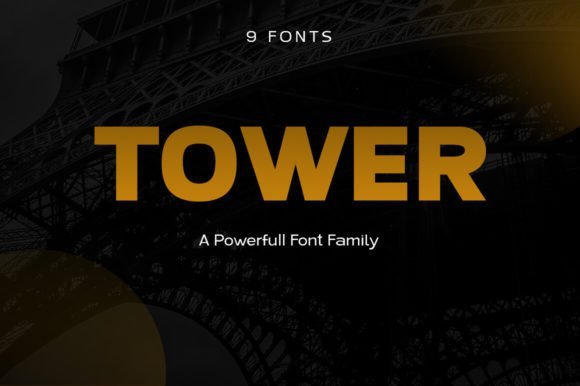
Tower stands out as a robust architectural typeface that expertly balances mathematical precision with approachable aesthetics. As a premier example of geometric sans serif fonts, it features a remarkably large x-height and minimal contrast, ensuring that every character remains legible even at small sizes in dense body text. The expansive weight range, spanning from delicate light to commanding black, allows designers to establish a clear typographic hierarchy within complex branding systems and high-end editorial layouts.
This typeface is particularly effective for large-scale advertising and digital UI projects where clarity is paramount. Its sophisticated, low-contrast design creates a clean, modern look that thrives in contemporary web environments and professional packaging. Whether you are crafting a minimalist logo or an information-heavy magazine spread, Tower provides the versatility of a true workhorse font with a distinctive, refined edge.
2. Pogonia Font
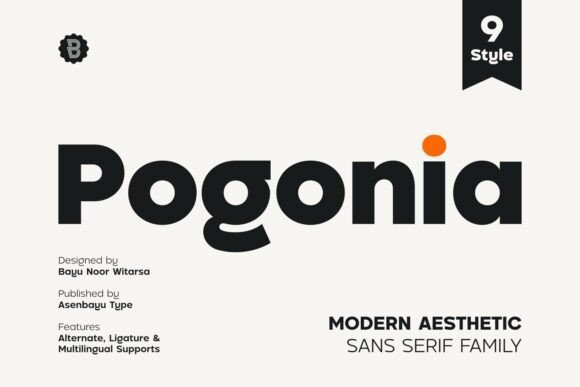
Pogonia offers a refreshing take on the geometric sans serif fonts category by blending rigid structural integrity with humanist warmth. This hybrid approach softens the coldness often associated with purely mathematical shapes, resulting in a typeface that feels both professional and inviting. Its timeless appeal is rooted in its simplicity, making it a versatile tool for creators who need a font that can transition seamlessly between digital social media assets and high-fashion print materials.
Ideal for lifestyle brands and boutique identity projects, Pogonia excels when used in lifestyle-oriented logo designs and aesthetic posters. The balanced proportions and open counters give the text a breathable quality, which is essential for maintaining a premium feel in minimalist web design. If you are looking to convey a sense of modern elegance without sacrificing readability, this typeface provides the perfect typographic voice for a variety of creative ventures.
3. Montreal Font
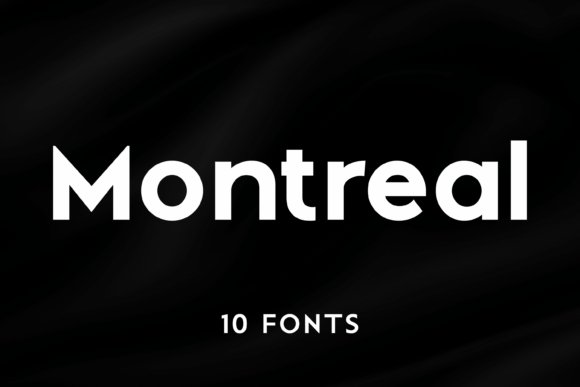
Montreal is a comprehensive typeface system designed for those who demand ultimate flexibility and a modernist aesthetic. With 10 distinct styles ranging from thin to heavy, this family exemplifies the core principles of geometric sans serif fonts: even proportions, sharp angles, and clean, unadorned lines. Each weight has been meticulously crafted to ensure harmony across the entire family, allowing for sophisticated pairings that look intentional and professionally polished.
The heavier weights, such as Montreal Black, are perfect for high-impact headlines and futuristic tech branding, while the lighter weights offer an understated elegance suitable for corporate stationary and editorial copy. This typeface is a valuable asset for any designer working on complex corporate identities or sleek app interfaces, as it provides the consistency needed for large-scale visual systems while maintaining a contemporary, high-contrast impact in display settings.
4. Mansfield Font
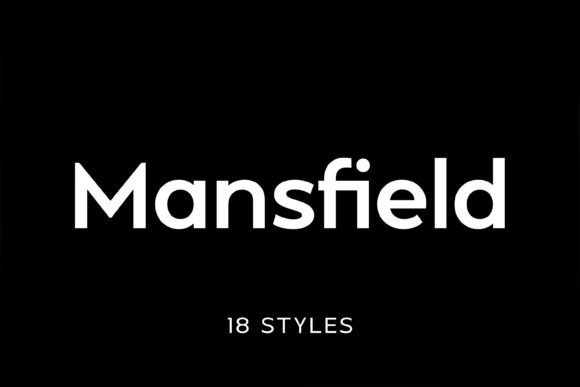
Mansfield is a masterclass in modern typography, drawing deep inspiration from the 20th-century giants like Futura and Avant-Garde to create a contemporary powerhouse. As one of the most versatile geometric sans serif fonts available, it balances the rigid mathematical precision of the Bauhaus movement with the softer, more readable nuances of neo-grotesque design. The result is a typeface characterized by a tall x-height and minimal stroke contrast, ensuring that every character remains legible whether it is rendered in a tiny mobile UI or a sprawling billboard.
With a comprehensive family of 18 styles across 9 distinct weights, Mansfield offers designers an incredible level of typographic control. This flexibility makes it an essential tool for complex editorial layouts where establishing a clear visual hierarchy is paramount. Beyond print, its clean silhouettes and sharp edges make it an ideal choice for high-end SaaS branding, professional web interfaces, and corporate identities that require a sense of permanence and modern sophistication.
5. Gragien Font
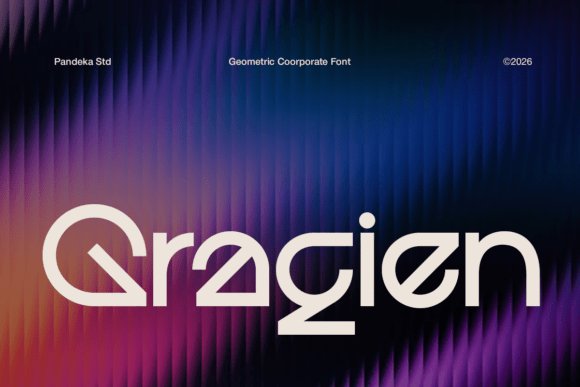
Gragien is a refined entry into the world of geometric sans serif fonts, specifically engineered for brands that demand a sense of structured innovation and corporate clarity. Its design is built upon a foundation of perfectly balanced proportions and smooth, circular curves that reflect a forward-thinking, technological aesthetic. Unlike more decorative typefaces, Gragien prioritizes efficiency and readability, making it a reliable workhorse for architectural firms, engineering consultancies, and modern financial institutions.
While many font families rely on sheer volume of weights, Gragien focuses on a single, impeccably crafted Regular style that excels in digital environments. Its clarity makes it particularly effective for data-heavy dashboards, tech presentations, and intricate user interfaces where every pixel counts. The inclusion of comprehensive multilingual support and precise punctuation ensures that it can carry a professional brand identity across global markets without losing its sleek, minimalist charm.
6. Savior Sense Font
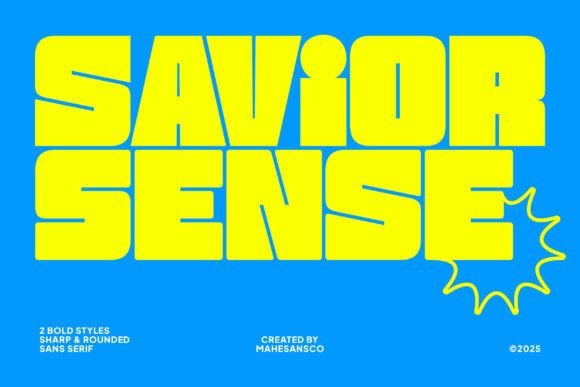
For projects that require a high-decibel visual impact, Savior Sense Font stands out among geometric sans serif fonts as a radically bold and heavy display face. It features aggressive, blocky letterforms with extremely tight internal counter spaces, creating a dense typographic texture that commands immediate attention. This font is designed to dominate the visual field, making it the perfect choice for title sequences, hero banners, and any advertising campaign that needs to project a sense of raw power and urban energy.
The family is split into two distinct personality types: Sharp and Rounded. The Sharp style offers a hard-edged, crystalline intensity suitable for competitive e-sports branding and edgy tech startups, while the Rounded version provides a slightly softer, more approachable take on the massive weight, ideal for streetwear labels and modern lifestyle magazines. Whether used in hip-hop album art or oversized exhibition posters, Savior Sense provides a youthful, confident aesthetic that is impossible to ignore.
7. Boho Wedding Duo Font
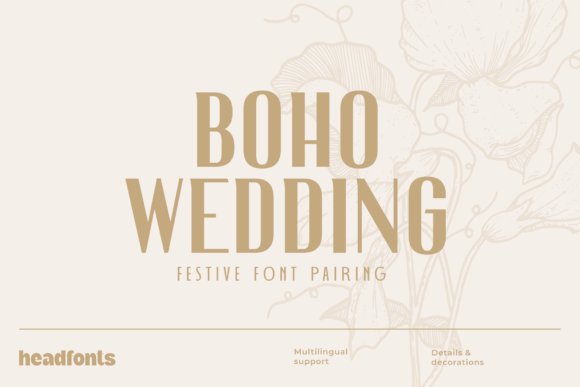
The Boho Wedding Duo offers a sophisticated masterclass in typographic contrast, pairing the intricate Nailhead Nova with the structured, art-deco-inspired Decohead. This combination thrives on the tension between ornate decorative elements and the clean, rhythmic lines of geometric sans serif fonts. By balancing a high-fashion display style with a functional sans-serif companion, designers can create a visual narrative that feels both organic and meticulously organized, perfect for high-end boutique branding or lifestyle editorial layouts.
Beyond the typical wedding suite, this duo excels in experiential design and luxury event planning. The geometric foundation of the secondary typeface ensures that fine print on menus, place cards, and seating charts remains legible even in dim lighting, while the more expressive partner handles the heavy lifting of headlines and logotypes. It is a versatile toolkit for any project that requires a fusion of bohemian whimsy and modern architectural precision.
8. Hugos Font
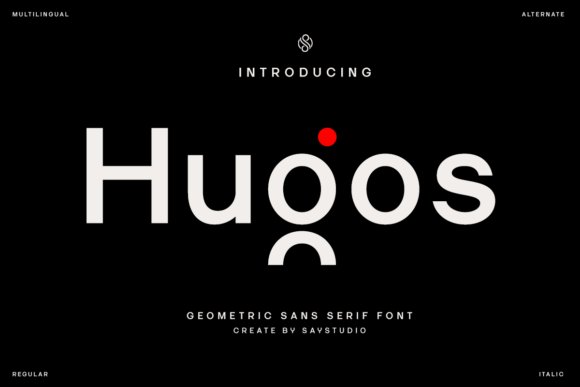
Hugos stands as a testament to the enduring appeal of mathematical harmony in typography, serving as a quintessential example of how geometric sans serif fonts can define a modern digital identity. Its letterforms are built on a framework of circular and linear shapes, resulting in a typeface that feels inherently professional yet approachable. This structural integrity makes it an ideal candidate for corporate rebranding projects where the goal is to project stability, innovation, and a forward-thinking ethos.
In the realm of UI/UX design, Hugos shines by offering exceptional clarity at various scales, from micro-copy in mobile applications to bold, impactful hero banners on desktop sites. The inclusion of a slanted italic style provides a necessary tool for creating emphasis and visual hierarchy without breaking the consistency of the grid-based design. Whether you are crafting a sleek tech interface or a minimal portfolio, this font provides the neutral yet distinct canvas needed to let content lead.
9. Drixon Font
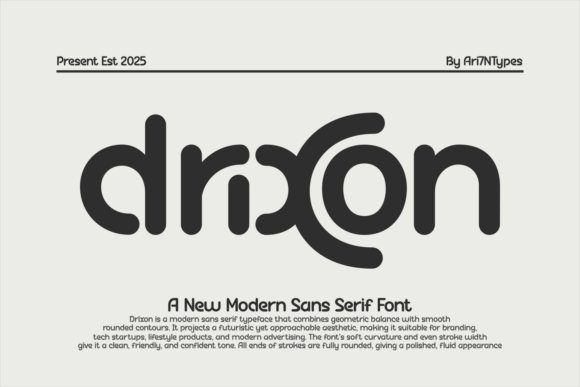
Drixon redefines the futuristic aesthetic by softening the edges of traditional geometric sans serif fonts to create a “human-friendly tech” vibe. While many sci-fi typefaces lean into aggressive angles, Drixon utilizes a smooth, rounded geometry that suggests innovation and fluid movement. This makes it particularly effective for hardware branding, app development, and any industry where the intersection of advanced technology and user accessibility is paramount.
The typeface’s polished and symmetrical construction offers a sense of calm confidence, making it a powerful choice for large-scale environmental graphics or automotive dashboard interfaces. Because the strokes maintain a consistent visual weight, Drixon remains highly readable even when applied to translucent textures or glowing digital displays. It is a distinctive choice for creators looking to move away from rigid, boxy shapes toward a more organic, futuristic visual language.
10. Spatha Fold Font
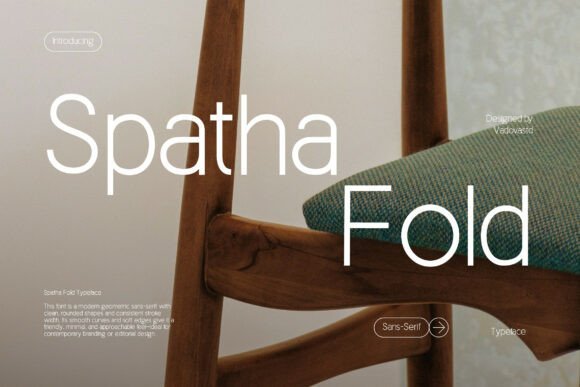
Spatha Fold Font stands as a masterclass in the intersection of organic softness and structural rigor. As a premier choice among geometric sans serif fonts, it trades the often harsh, clinical edges of the genre for fluid, inviting curves that suggest a refined touch. This typeface is particularly effective in editorial environments where the text must breathe, offering a sense of airy sophistication that works perfectly for high-end interior design portfolios or lifestyle magazines. The generous letter spacing and deliberate stroke weight ensure that every word maintains its legibility while exuding an aura of contemporary calm.
For designers tasked with building a cohesive visual identity, this font provides a versatile foundation for branding concepts that require a professional yet approachable demeanor. Its unique geometric construction makes it a standout option for minimalist posters and architectural signage, where the purity of form is paramount. By choosing this typeface, you are not just selecting a set of characters, but adopting a design philosophy that prioritizes clarity, elegance, and the soft-modern aesthetic essential for today’s luxury markets.
11. Inertia Matte Edition Font
The Inertia Matte Edition Font is a high-performance display family that draws heavy inspiration from the world of industrial design and modern aerospace engineering. Unlike more traditional geometric sans serif fonts, this edition introduces a compelling structural rhythm through the use of subtle stencil-like gaps and interlocking strokes. These technical nuances create a sense of forward motion and mechanical precision, making it an ideal candidate for tech startups, luxury automotive brands, and high-end manufacturing firms looking to project an image of innovation and durability.
Beyond its striking visual weight, Inertia Matte Edition offers a distinctive set of character shapes, such as the elegantly arched ‘A’ and the dual-line ‘N’, which transform standard headlines into works of typographic art. This typeface is engineered for impact, thriving in large-scale formats like exhibition graphics, packaging, and digital interfaces. With its support for extended Latin characters and a robust set of symbols, it provides global brands with the tools necessary to maintain a consistent, sophisticated presence across diverse international markets.
12. Moonhost Font
Moonhost Font serves as a bridge between the opulence of the Roaring Twenties and the sterile precision of the space age. This stencil-based display typeface reinterprets the classic Art Deco aesthetic through the lens of modern geometric sans serif fonts, resulting in a look that is both regal and technologically advanced. The strategic use of negative space within each letterform creates a rhythmic pulse that is perfect for luxury branding, boutique hospitality identities, and premium spirits packaging where a sense of exclusivity is required.
The typeface is particularly adept at handling creative projects that demand a strong, authoritative voice without sacrificing stylistic flair. Whether applied to a minimalist movie poster or a high-concept fashion campaign, Moonhost commands attention through its unique geometry and historical weight. By blending traditional design philosophies with contemporary stencil mechanics, this font offers a fresh perspective for designers seeking to create a visual narrative that feels timeless yet undeniably rooted in the future.
13. Ropan Font
Ropan distinguishes itself through a comprehensive weight system, spanning nine distinct levels from an ethereal thin to a commanding black. This architectural approach to type design ensures that the typeface maintains its structural integrity whether it is being used for intricate fine print or bold, high-contrast display headlines. Its clean lines and balanced proportions make it a quintessential example of how geometric sans serif fonts can adapt to the rigorous demands of modern digital interfaces and physical branding materials alike.
The font is particularly effective for designers who need a workhorse family for multi-layered projects such as magazine layouts or complex corporate identities. By leveraging its OpenType features, users can unlock a level of typographic nuance that elevates simple labels and packaging into sophisticated pieces of visual communication. Whether you are crafting a minimalist logo or a data-heavy annual report, the neutral yet contemporary aesthetic of this typeface provides a stable foundation for any creative direction.
14. Rainis Font
Rainis serves as a bridge between the historical elegance of the Art Deco period and the crisp efficiency of contemporary display design. While many geometric sans serif fonts prioritize utility above all else, Rainis embraces its decorative roots to act as a bold visual anchor in posters and web hero sections. The sharp, calculated geometry of its letterforms reflects a sense of luxury and architectural precision, making it an ideal candidate for high-end fashion branding or editorial illustrations that require a touch of mid-century flair.
Because it functions primarily as a display typeface, it pairs exceptionally well with more restrained, utilitarian fonts. Using it as a headline face allows for a sophisticated interplay of shapes, where the exaggerated curves and straight-edge terminals create a rhythmic flow across the page. It is a specialized tool for designers who want to break away from the monotony of standard neo-grotesques while still maintaining the clean, logical structure inherent in geometric typography.
15. Magnify Font
Drawing deep inspiration from the 1927 classic Futura, Magnify Font introduces a subtle but significant evolution to the rigid circularity often found in the genre. By utilizing slightly oval-shaped structures for key characters like the ‘O’, ‘G’, and ‘C’, it achieves a more natural optical balance that reduces the harshness typically associated with purely mathematical designs. This intentional deviation results in a typeface that feels more breathable and legible in long-form paragraphs without sacrificing the clean and modern ethos of the geometric sans serif category.
The family consists of eight weights, complemented by matching obliques, providing a granular level of control over typographic hierarchy. The inclusion of unique alternate characters for lowercase letters such as ‘a’, ‘g’, and ‘y’ offers a bespoke feel, allowing designers to customize the personality of a headline or a logo on the fly. From the delicate precision of the Hairline weight to the authoritative presence of the Bold, this font family is a sophisticated tribute to the Bauhaus movement, refined for the high-resolution requirements of today’s design landscape.
16. Perfect Corporate Font
Perfect Corporate Font serves as a cornerstone for designers seeking a balance between clinical precision and approachable warmth. By utilizing a diverse range of nine specific weights, from the ethereal Thin to the commanding Black, this typeface enables a sophisticated typographic hierarchy that is essential for complex information design. Its geometric sans serif fonts foundations are evident in the mathematically balanced circles and clean intersections, ensuring that even in dense corporate annual reports or multi-layered web interfaces, the text remains exceptionally readable and visually cohesive.
Beyond its aesthetic versatility, the typeface is engineered for high-stakes business environments where consistency across platforms is non-negotiable. Whether it is applied to a minimalist tech startup’s landing page or a legacy firm’s internal documentation, the font provides a sense of established authority. The inclusion of PUA encoding simplifies the workflow for creative professionals, allowing easy access to a rich set of glyphs and special characters without requiring specialized layout software, making it a highly efficient tool for both print and digital production cycles.
17. Noemia Dreams Font
Noemia Dreams Font offers a masterclass in the ‘retro-revival’ aesthetic, pairing a structured sans with a rhythmic, expressive script to evoke the soul of the 1970s. This duo leverages the inherent stability of geometric sans serif fonts to provide a solid visual anchor, while the accompanying script adds a layer of organic human touch. This juxtaposition is particularly effective for boutique branding projects, such as luxury candle packaging or high-end apparel labels, where the goal is to feel both nostalgically familiar and modernly curated.
The typeface excels in editorial environments, where its dual nature can be used to create dynamic title treatments and pull-quotes that jump off the page. The sans component is crafted with a spacious x-height and circular proportions that maintain clarity even in smaller captions, while the script flourishes provide a decorative contrast that mimics hand-painted signage. By integrating these two distinct styles, designers can achieve a complex, multi-dimensional brand identity that captures the ‘analog’ warmth of vintage vinyl records without sacrificing the technical requirements of high-resolution digital displays.
18. Bager Font
Bager Font is a high-octane interpretation of modern typography, specifically engineered for industries where speed and technological prowess are key. Its wide-proportioned characters and architectural stability differentiate it from more traditional geometric sans serif fonts, creating a sense of forward momentum and horizontal expansion. This makes it an ideal candidate for automotive branding, sports apparel, and cinematic title sequences that require a font with a ‘heavy’ visual footprint and an aerodynamic aesthetic.
The typeface’s versatility is anchored by its eight variable weights, allowing designers to transition smoothly from the sleek elegance of the lighter styles to the industrial strength of the Extra Bold. In digital environments, Bager’s sharp terminals and open counters ensure crisp rendering on high-density screens, making it a reliable choice for futuristic UI/UX designs and gaming interfaces. By prioritizing a sense of physical presence and precision, this font empowers creators to build visual identities that feel both permanent and pulse-pounding, perfectly suited for the fast-paced world of tech innovation.
19. Geometos Neue Font
Geometos Neue Font stands out as a masterclass in architectural precision, offering an all-caps display family that commands attention through its seven diverse weights. This typeface strips away unnecessary ornamentation to focus on the raw power of the circle and line, making it a quintessential example of how geometric sans serif fonts can define a visual space. From the light, airy presence of its thinner weights to the thunderous impact of the extra-bold versions, this family provides designers with a consistent, sharp-edged toolkit for high-stakes branding and editorial hierarchies.
Ideally suited for environments where clarity and authority are non-negotiable, Geometos Neue excels in large-scale applications such as environmental signage, movie titles, and digital headers. The emphatic form of each glyph ensures legibility across various distances, while the uniform stroke widths maintain a cohesive aesthetic throughout complex layouts. Whether you are developing a modern corporate identity or a minimalist poster series, this font delivers a polished, professional finish that feels both timeless and aggressively contemporary.
20. Gorva Font
Gorva Font reimagines the standard construction of geometric sans serif fonts by infusing a sense of high-fashion elegance and rhythmic flow. While many geometric typefaces can feel rigid, Gorva introduces modern, unique stylistic flourishes that elevate it beyond mere utility. It is fully PUA encoded, granting designers seamless access to a rich library of special glyphs and decorative swashes without the need for complex software workarounds. This makes it an exceptionally user-friendly choice for creators looking to add a custom, hand-crafted feel to their digital typesetting.
The inclusion of sophisticated ligatures and alternate characters allows for a high degree of customization in logo design and boutique packaging. Its balanced proportions and wide apertures ensure that it remains readable while still making a bold stylistic statement. If you are working on a luxury brand project or a lifestyle magazine where the typography needs to bridge the gap between structural geometry and artistic flair, Gorva provides the necessary versatility to take your creative vision to the next level.
21. Novaris Font
Novaris Font is a premium typographic solution that brilliantly navigates the intersection of futuristic aesthetics and organic minimalism. Characterized by a harmonious blend of sharp, clean cuts and smooth, futuristic curves, this typeface represents a sophisticated evolution within the realm of geometric sans serif fonts. Its versatility is its greatest strength, offering a visual language that feels just as at home in a high-tech gaming interface as it does in a luxury skincare campaign. The typeface communicates a sense of progress and innovation, making it the perfect vehicle for brands that want to position themselves at the forefront of their industry.
Beyond its obvious applications in sci-fi and tech sectors, Novaris offers a surprising level of warmth that makes it ideal for sustainable branding and eco-conscious initiatives. The minimalist lines evoke a sense of purity and clarity, which is essential for projects related to conservation or high-end architectural design. By prioritizing balanced geometry and visual impact, Novaris ensures that every word carries weight, providing a striking presence in both digital UI environments and high-resolution print materials.
22. Noar Font
Noar is a masterclass in architectural clarity, offering a refined interpretation of modern typography. This typeface family distinguishes itself through a five-weight system ranging from a delicate Extra Light to a commanding Bold, all accompanied by perfectly matched italics. By adhering to the core principles of geometric sans serif fonts, Noar utilizes low visual contrast and open apertures to ensure that every glyph remains distinct, whether rendered on a high-resolution display or a printed editorial spread.
While many display fonts sacrifice utility for style, Noar bridges the gap by functioning as both a loud headline tool and a subtle informative face. Its all-caps character set is particularly effective for branding projects that require a sense of authority and permanence. Designers can leverage the stylistic alternates and PUA-encoded features to create bespoke logos or unique book covers that feel custom-tailored rather than template-driven, making it a cornerstone asset for any professional design toolkit.
23. Luminova Font
Luminova introduces a humanistic warmth to the often rigid world of geometric sans serif fonts. By softening the standard mathematical precision of modern letterforms with gentle curves and airy spacing, this typeface achieves a sense of approachability without losing its professional edge. Its minimalist construction is built on a soft geometric rhythm that prioritizes eye comfort, making it an exceptional choice for long-form reading on digital interfaces and lifestyle-oriented mobile applications.
Beyond its technical merits, Luminova serves as a versatile visual voice for brands that value transparency and modernism. The open shapes and generous tracking allow the font to breathe, ensuring that messaging remains legible even in cramped UI environments or small-scale packaging. Whether you are developing a new corporate identity or crafting a clean editorial layout, this font provides the perfect balance of personality and functional simplicity, proving that geometric structures can feel remarkably organic.
24. Cadera Font
Cadera Font represents a sophisticated intersection between classical Roman proportions and contemporary minimalism. As a high-contrast serif, it provides a sharp, artistic counterpoint to the uniform stroke weights typically found in geometric sans serif fonts. The typeface is defined by its dramatic hairlines and bold stems, creating a rhythmic visual tension that is ideally suited for luxury fashion editorials, artisanal packaging, and high-end architectural branding where every character must exude elegance.
What truly elevates Cadera is its collection of sweeping curves and fluid ligatures that transform standard text into a piece of static art. While its primary role is that of a hero display font, it functions exceptionally well when paired with a clean, low-contrast sans-serif to handle body copy. This contrast allows Cadera’s decorative elements and sharp serifs to command the viewer’s attention, making it a go-to selection for designers looking to inject a sense of quiet confidence and timeless sophistication into their creative projects.
25. Loqura Font
Loqura introduces a sharp, techno-modern aesthetic to the realm of geometric sans serif fonts, channeling a distinct Y2K futurism that is both nostalgic and forward-looking. Its architecture is defined by condensed shapes and high-contrast geometric precision, making it an ideal choice for creators looking to establish a dominant visual identity. The typeface excels in digital-first environments where bold headlines and sleek logos need to command attention without sacrificing minimalist elegance.
Beyond its striking visual weight, this font is meticulously crafted for versatility across modern design suites like Adobe Illustrator and Canva. It is particularly effective for high-impact branding projects, stationery mockups, and experimental editorial layouts. Whether you are building a tech startup’s landing page or designing a streetwear lookbook, the sleek lines and sharp curves of Loqura provide a sophisticated edge that ensures your typography stands out in a crowded digital landscape.
26. Holgada Family Font
Designed by Pablo Balcells for Graviton Font Foundry, the Holgada Family is a masterclass in balancing structural rigidity with an approachable, friendly personality. While many geometric sans serif fonts can feel cold or overly mechanical, Holgada utilizes refined rounded endings to soften its appearance, creating a welcoming feel for the viewer. This 12-style family is engineered for extreme legibility, making it a reliable workhorse for everything from dense technical documentation to sprawling corporate identities.
The typeface’s versatility is its greatest strength, offering a full range of weights and small caps that adapt seamlessly to different scales. In small sizes, its clear apertures and balanced proportions ensure readability in long-form body text, while in large display formats, the rounded terminals provide a distinctive, contemporary character for logos and headers. Supporting multiple languages and diverse typographic needs, Holgada is an essential tool for designers who require a neutral yet warm geometric foundation for multi-platform projects.
27. Caplove Font
Caplove breaks the traditional mold of geometric sans serif fonts by infusing a playful, sophisticated flair into a clean typographic structure. It is characterized by its unique character alternates—most notably the expressive ‘C’ and ‘E’—which allow designers to create a custom, hand-lettered look with the efficiency of a digital typeface. This balance of thick, bold strokes and unexpected curvy flourishes makes it a powerhouse for the fashion and beauty industries, where personality and luxury must coexist.
Functionally, Caplove serves as a high-impact display face that turns standard messaging into a piece of digital art. It pairs beautifully with light-weight serifs for a high-fashion editorial vibe or with more rigid geometric faces for a modern, tech-forward aesthetic. It is exceptionally well-suited for luxury packaging, book cover designs, and social media tiles that require a bold, recognizable mark. By integrating designer-level character variations directly into the font, Caplove empowers creators to build distinct, memorable brand narratives without needing complex manual adjustments.
28. Fringk Font
Fringk Font represents a masterclass in high-contrast elegance, offering a sharp, sophisticated aesthetic that bridges the gap between classic editorial style and modern display requirements. While it features refined serifs and polished letterforms, its structured proportions allow it to harmonize beautifully alongside modern geometric sans serif fonts in complex typographic hierarchies. This typeface is particularly effective for luxury branding where a sense of prestige and timelessness is paramount, providing a crisp visual texture that commands attention in high-end fashion magazines or bespoke wedding invitations.
Beyond its sharp terminals, Fringk offers a level of versatility that designers often seek when building a multi-layered brand identity. It excels in large-scale applications such as boutique storefronts and premium product packaging, where its delicate yet confident strokes can truly shine. To achieve a perfectly balanced contemporary look, consider pairing this font with minimalist sans serif families; the interplay between Fringk’s organic warmth and the rigid precision of geometric sans serif fonts creates a dynamic visual tension that feels both current and authoritative.
29. Cult Font
Cult Font stands out as a premier example of contemporary typography, meticulously engineered for brand identities that value clarity and structural integrity. As one of the most versatile geometric sans serif fonts in a designer’s toolkit, it utilizes precise circular curves and consistent stroke widths to deliver a sense of modern objectivity. This makes it an exceptional choice for architectural firms or creative agencies looking to project a forward-thinking and highly organized image across both digital interfaces and physical environmental signage.
What distinguishes Cult from other minimalist options is its inherent confidence; the typeface possesses a vertical stability that ensures legibility at any scale, from micro-copy on mobile apps to massive outdoor billboards. Its clean proportions offer a neutral yet sophisticated canvas that doesn’t distract from the core message, allowing the geometry of the letterforms to speak for themselves. When integrated into a luxury brand system, this font reinforces a sense of premium quality, proving that geometric sans serif fonts can be both functional and deeply evocative of modern high-fashion aesthetics.
30. Massive Geometric Font Bundle
The Massive Geometric Font Bundle is an expansive library designed for professionals who require a diverse range of weights and styles within the realm of modern typography. This collection features 20 distinct typefaces, each rooted in the fundamental principles of Euclidean geometry, ensuring that every character across the entire set maintains a strict adherence to balance and proportion. By offering a spectrum of geometric sans serif fonts, this bundle provides the necessary flexibility to tackle everything from tech-focused editorial layouts to minimalist corporate stationery without ever sacrificing visual cohesion.
For designers tasked with creating scalable design systems, having access to such a wide variety of geometric sans serif fonts is invaluable. The fonts in this bundle are optimized for high-performance rendering on digital screens while maintaining the crisp, tactile quality required for premium print production. Whether you are developing a user interface for a fintech startup or a comprehensive signage system for a museum, these typefaces provide the structural clarity and functional beauty needed to communicate complex information with ease and style.
31. Keager Font
Keager Font stands as a testament to the versatility of contemporary geometric sans serif fonts, blending rigid structural integrity with a distinctive, assertive personality. Its letterforms are characterized by a clean, rationalized skeleton that prioritizes readability while maintaining a bold, heavy-weight presence. Unlike more sterile typefaces, Keager introduces subtle, unique nuances in its joints and terminals, making it a premier selection for designers looking to inject a sense of premium power into high-impact branding projects and modern logotypes.
When implemented in display contexts, this typeface thrives across digital and physical mediums alike. Its robust construction ensures clarity in social media storytelling and high-resolution packaging, where visual weight is paramount. For art directors seeking a typeface that balances the mathematical perfection of geometric shapes with a raw, energetic flair, Keager provides a sophisticated solution that bridges the gap between editorial elegance and street-ready graphic design.
32. Duoline Modern Font
Duoline Modern Font offers a high-tech reimagining of traditional geometric sans serif fonts by introducing a sophisticated inline, double-stroke architecture. This stylistic choice creates a sense of depth and motion, making it particularly effective for industries centered around innovation, such as aerospace, software development, and automotive design. The parallel lines are meticulously spaced to maintain optical balance, ensuring that the typeface remains legible even when the aesthetic leans heavily into a futuristic or industrial vibe.
Beyond its technical appeal, Duoline Modern excels in minimalist poster design and architectural branding where negative space plays a critical role. The font’s sporty and rhythmic cadence makes it an ideal candidate for luxury athletic apparel labels or trend-forward monograms. By departing from solid-fill characters, it allows designers to play with transparency and layering, providing a toolset that feels both structurally sound and visually light.
33. Benzin Font
Benzin Font is a masterclass in functional utility, offering a comprehensive family of five weights that cater to a full spectrum of typographic needs. As one of the more versatile geometric sans serif fonts on the market, it addresses the common struggle of kerning adjustments through built-in optical optimization. The family is engineered so that the Thin weights feature naturally wider letter-spacing for breathability in long-form body copy, while the Bold and Black weights are tightened for maximum impact in massive headlines and aggressive poster layouts.
This out-of-the-box readiness makes Benzin a favorite for UI/UX designers and editorial layout artists who require a cohesive visual language across various interface scales. Whether you are crafting a dense informational brochure or a minimalist web landing page, the geometric consistency of Benzin ensures a professional, harmonious look. It eliminates the guesswork of manual tracking, allowing creators to focus on the hierarchy and composition of their message rather than the minutiae of character spacing.
34. Geonowa Font
Geonowa represents a masterful execution of the contemporary geometric sans serif fonts movement, prioritizing optical balance and fluid circularity. Its design philosophy centers on a harmonious blend of mechanical precision and soft, approachable terminals, which effectively removes the coldness often associated with strictly mathematical typefaces. For creative directors building comprehensive digital design systems, this font offers a versatile foundation that remains legible across diverse screen densities, ensuring that brand personality is never sacrificed for functionality.
The typeface shines particularly bright in corporate identity projects and tech-focused branding where a sense of reliability and modern innovation is required. Because of its wide weight range and meticulously spaced characters, Geonowa excels in both high-contrast website headers and intricate mobile app interfaces. It is an essential tool for designers seeking a clean, professional aesthetic that feels both futuristic and grounded, making it a top-tier choice for everything from startup pitch decks to global editorial layouts.
35. Morlen Regular Font
Morlen Regular is a powerhouse in the world of bold geometric sans serif fonts, specifically engineered for high-impact visual communication that demands immediate attention. Unlike its more delicate counterparts, this typeface utilizes heavy, chunky letterforms that dominate the layout, making it an ideal candidate for aggressive headline treatments and outdoor advertising. The sheer mass of the characters provides a solid, immovable presence on the page, perfect for designers who want to create a sense of authority and uncompromising modernism in their work.
This font is especially effective when utilized in contemporary packaging design or bold streetwear branding where the typography itself serves as the primary graphic element. Its geometric construction ensures that even at extreme weights, the negative space remains balanced, preventing the “clogging” often seen in lesser heavy fonts. Whether you are crafting a social media campaign that needs to stop the scroll or a large-scale poster for a music festival, Morlen Regular delivers a punchy, memorable aesthetic that translates perfectly from ink on paper to pixels on a screen.
36. Groptika Font
Groptika is a high-concept display typeface that pushes the boundaries of futuristic geometric sans serif fonts by incorporating sharp, stencil-like breaks and aggressive angularity. Its architectural design is heavily influenced by aerospace aesthetics and cyberpunk visuals, making it a standout selection for projects rooted in technology, gaming, and speculative fiction. The intentional gaps in the letterforms create a rhythmic visual texture that suggests data streams, mechanical assembly, and the high-speed motion of the digital age.
Because of its highly stylized and distinctive character, Groptika is best utilized as a hero font for logos, e-sports branding, and cinematic title sequences where the goal is to establish a unique, tech-forward identity. When paired with a more neutral, minimalist secondary typeface, Groptika acts as a focal point that communicates innovation and forward-thinking design. It is the perfect choice for AI startups, software developers, and luxury tech brands looking to escape traditional corporate tropes in favor of a bold, engineered look that feels decades ahead of its time.
37. Full Sans Font
Full Sans Font represents a masterful evolution of the classic geometric sans serif fonts that defined early 20th-century modernism. While it clearly draws inspiration from the legendary structures of Futura and Avant Garde, it refines those rigid forms through a meticulous harmonization of character proportions. By optimizing the relationship between x-height and width, this typeface achieves a superior level of legibility that many of its predecessors lacked, making it an exceptional choice for both high-resolution editorial work and complex digital interfaces.
This font serves as a core component of a broader typographic ecosystem, designed to work seamlessly alongside its slab and neo-grotesque siblings. With a robust library of 20 styles—including small caps and multiple weights—it offers designers a sophisticated toolkit for global branding projects. The inclusion of comprehensive OpenType features, such as case-sensitive forms and old-style figures, ensures that whether you are designing a wayfinding system or a mobile app, your typography remains polished and technically flawless.
38. Monsta Fectro Font
For designers seeking a bold departure from conventional minimalism, Monsta Fectro Font delivers a high-impact, condensed aesthetic that bridges the gap between industrial design and urban streetwear. This geometric sans serif font is characterized by its sharp, aggressive edges and a distinct Y2K techno-influence that captures the raw energy of contemporary digital culture. It is specifically engineered for display use where the objective is to command attention and project a sense of forward-thinking momentum.
Beyond its striking visual weight, this typeface excels in contexts like experimental posters, motion graphics, and futuristic visual identities. Its condensed nature allows for dense, powerful headlines that remain legible even at extreme scales. By integrating elements of grunge and techno aesthetics into a structured geometric framework, Monsta Fectro provides a unique solution for brands looking to establish a disruptive presence in the fashion, gaming, or entertainment sectors.
39. Lorin Font
Lorin Font is a sophisticated interpretation of the modern geometric sans serif fonts genre, prioritizing aesthetic balance and understated elegance. Rather than following the purely mathematical path of traditional geometry, Lorin introduces a subtle charm that gives it a more approachable, humanistic personality. This makes it an ideal candidate for luxury branding and high-end editorial layouts where a sense of quiet confidence is required rather than loud, decorative flourishes.
The true versatility of Lorin is revealed through its four distinct weights, which allow for a clear and graceful typographic hierarchy. When used with generous letter-spacing, the font takes on a breathable, airy quality reminiscent of high-profile fashion magazines and minimalist art portfolios. Whether utilized for a sleek logo type or extensive body copy, Lorin maintains a consistent visual rhythm that elevates the overall perceived value of any creative project.
40. Geometrica Font
The Geometrica Font Collection draws heavily from the rigorous traditions of Swiss graphic design, offering a comprehensive suite that includes the KIME, ROMEL, BERLIN, and ELITE variants. Each of these four typefaces captures the essence of mathematical harmony, stripping away unnecessary ornamentation to focus on pure form. By integrating these geometric sans serif fonts into your toolkit, you gain access to a balanced aesthetic that feels both authoritative and approachable, making it an essential resource for architects of digital identity and print layout experts alike.
Beyond its structural integrity, the collection excels in high-stakes environments like luxury packaging and corporate branding. The inclusion of both Regular and Italic styles across all four families allows for sophisticated typographic hierarchies that are often hard to achieve with single-weight sets. Whether you are developing a minimalist web interface or a high-end cosmetic label, these fonts provide the grotesque legibility and contemporary polish required to communicate credibility and effortless timelessness.
41. Aero Font
Designed by the prolific Peter Wiegel, Aero Font is a masterclass in weight distribution and circular proportions. Unlike more rigid traditionalists, this typeface introduces a subtle fluidity into the geometric sans serif fonts category, ensuring that each glyph feels organic yet disciplined. It is particularly effective for designers who need a face that avoids the clinical coldness sometimes associated with pure geometry, offering instead a rhythmic warmth that breathes life into creative layouts and bold headlines.
Its versatility makes it a reliable workhorse for diverse applications, from mobile app interfaces to large-scale environmental signage. The balanced apertures and consistent stroke widths contribute to exceptional readability even at smaller scales on retina displays. When seeking geometric sans serif fonts that bridge the gap between mid-century modernism and 21st-century digital requirements, Aero stands out as a premier choice for projects demanding a clear, optimistic, and highly professional visual voice.
42. Bodoni Elegant Font
While rooted in the neoclassical tradition, Bodoni Elegant Font reimagines the iconic high-contrast serif for a contemporary audience. It features extreme modulation between its thick verticals and razor-thin horizontal serifs, creating a visual drama that is perfect for editorial hero moments. This typeface functions as a sharp, architectural counterpoint to the softer curves of geometric sans serif fonts, allowing designers to build tension and sophistication in high-fashion branding or modern art gallery identity systems.
The liquid-smooth personality of this face makes it exceptionally well-suited for large-format displays like billboards or website landing pages where its intricate details—like the needle-fine terminals—can be fully appreciated. It thrives in environments that demand an aura of established authority mixed with an innovative edge. By pairing Bodoni Elegant with a clean, low-contrast geometric sans serif, you can achieve a balanced, futuristic look that feels both grounded in history and ready for the avant-garde.
43. Groominu Font
Groominu Font stands out as a masterclass in modern minimalism, blending strict mathematical ratios with soft, rounded terminals. As one of the more versatile geometric sans serif fonts available for digital-first branding, it utilizes custom ligatures to break the monotony of standard typesetting. This creates a rhythm that feels both engineered and approachable, making it an ideal candidate for high-end fashion labels or innovative tech startups looking to convey transparency and precision.
Beyond its aesthetic appeal, this typeface is engineered for superior legibility across various screen resolutions. The balanced x-height and generous spacing ensure that whether it is used for a sprawling hero banner or a compact mobile interface, the message remains clear. It provides a complete character set including uppercase, lowercase, and essential punctuation, allowing designers to maintain a cohesive visual identity throughout complex UI/UX projects or editorial layouts.
44. Propaganda Font
Propaganda Font delivers an uncompromising visual presence inspired by the utilitarian grit of mid-century industrial signage. Its heavy stroke weights and sharp, architectural corners differentiate it from softer geometric sans serif fonts, leaning instead toward a sense of permanence and authority. The steady rhythm of its letterforms commands attention immediately, making it the perfect vehicle for bold political statements, cinematic title cards, or urban lifestyle branding that requires a rugged, established feel.
While many display faces sacrifice readability for style, this font maintains a solid construction that holds up even under demanding printing conditions. The massive visual density makes it particularly effective for large-scale applications like protest posters, environmental graphics, and high-impact editorial headers. By choosing this typeface, designers tap into a legacy of powerful communication, ensuring their headlines resonate with an unmistakable voice of strength and conviction.
Choosing one of these 44 geometric sans serif fonts ensures your work remains timeless yet modern throughout 2026. These typefaces offer the legibility and aesthetic balance needed for both print and digital platforms. Experiment with different weights and pairings to see how these geometric styles can ground your visual identity and improve overall user experience.